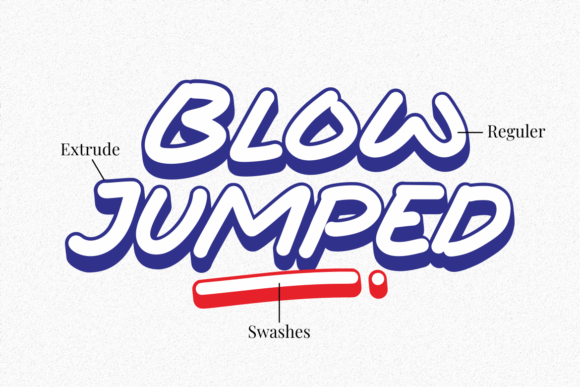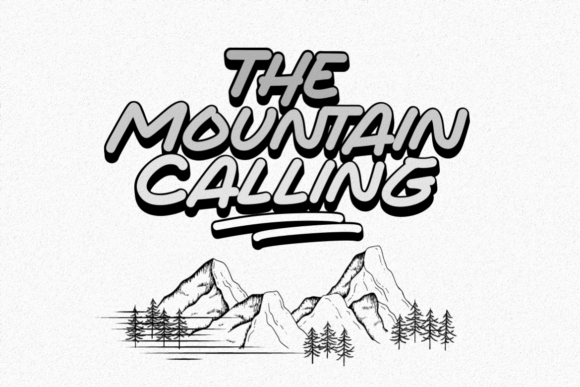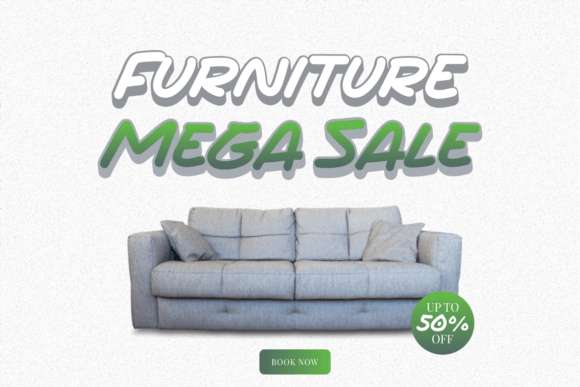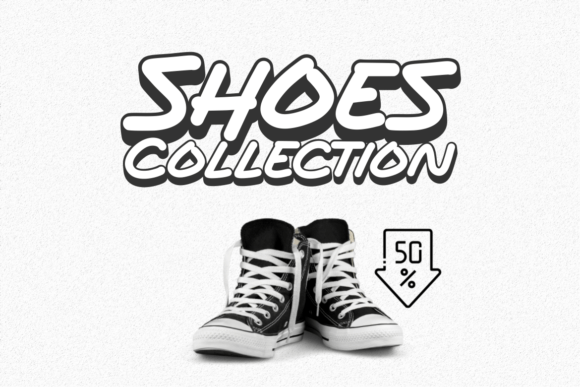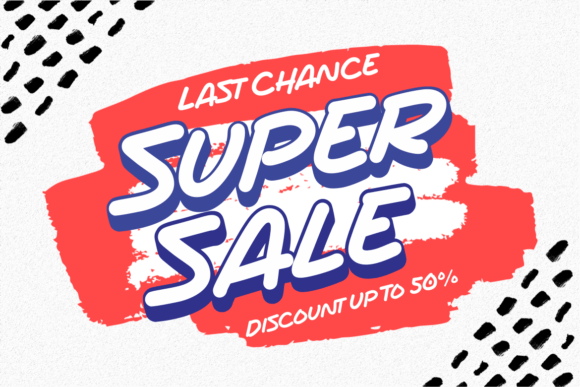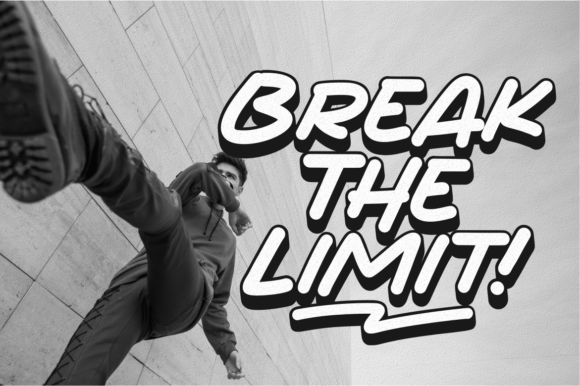
Introduction to Blow Jumped Font
Blow Jumped is a versatile, and stylish layered display font perfect for a wide spectrum of applications such as logos, branding, social media, headlines, and many more.
Add it to any of your creative projects, and it will give them a playful and exquisite feel .
Blow Jumped Font offers exceptional quality and versatility, making it a valuable addition to your design toolkit. Whether you’re creating for personal projects or commercial use, Blow Jumped Font delivers professional results.